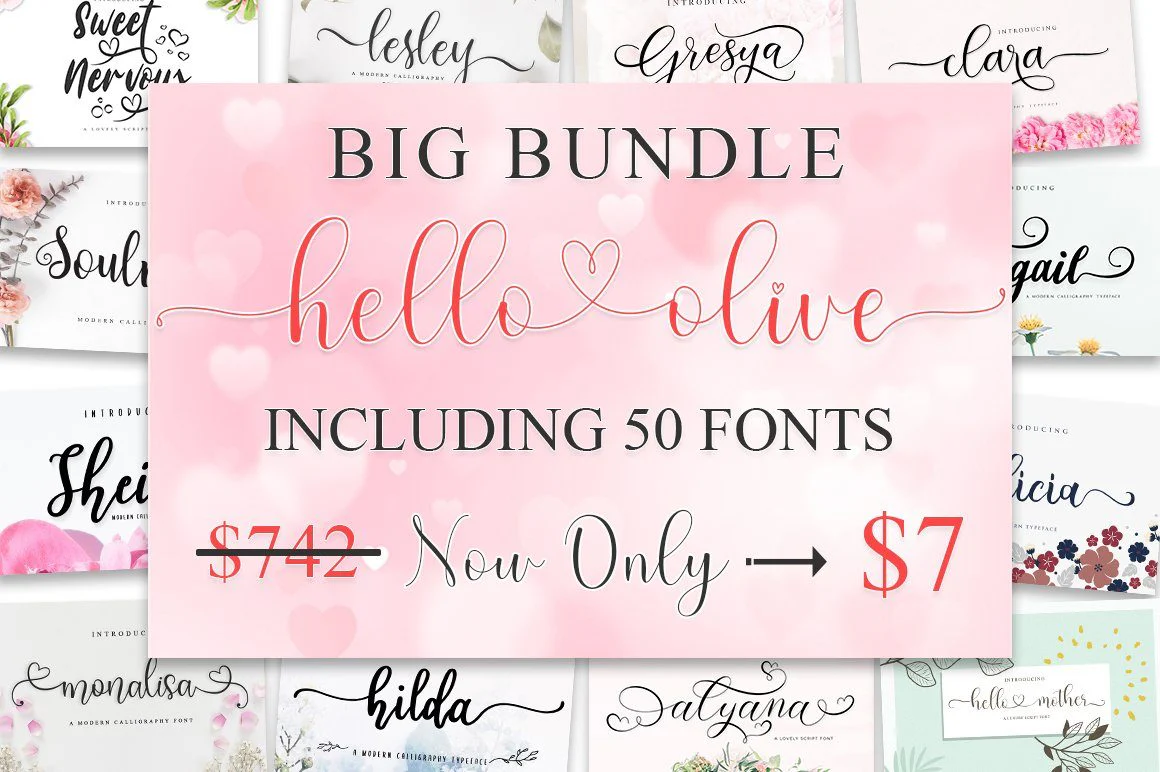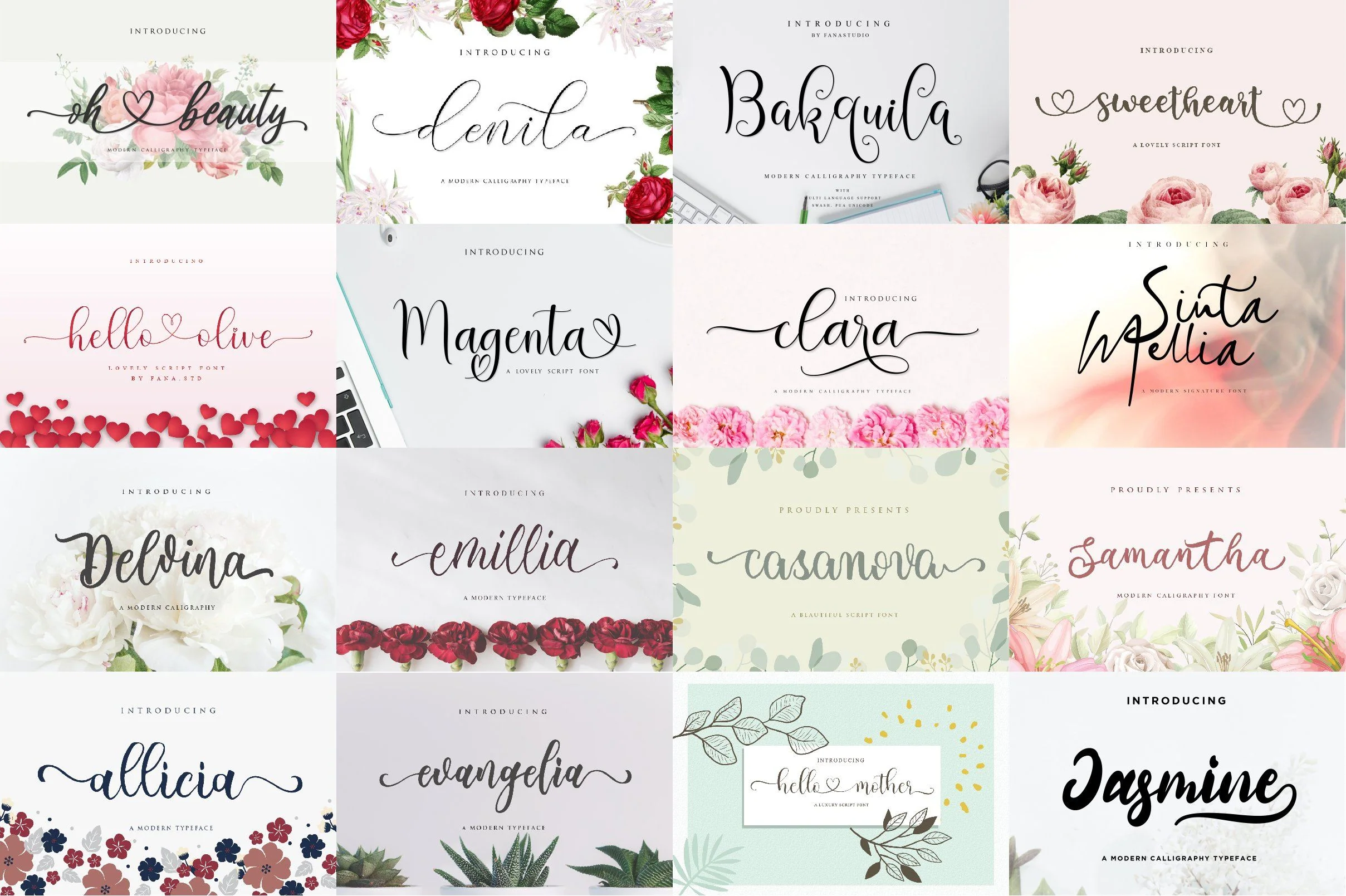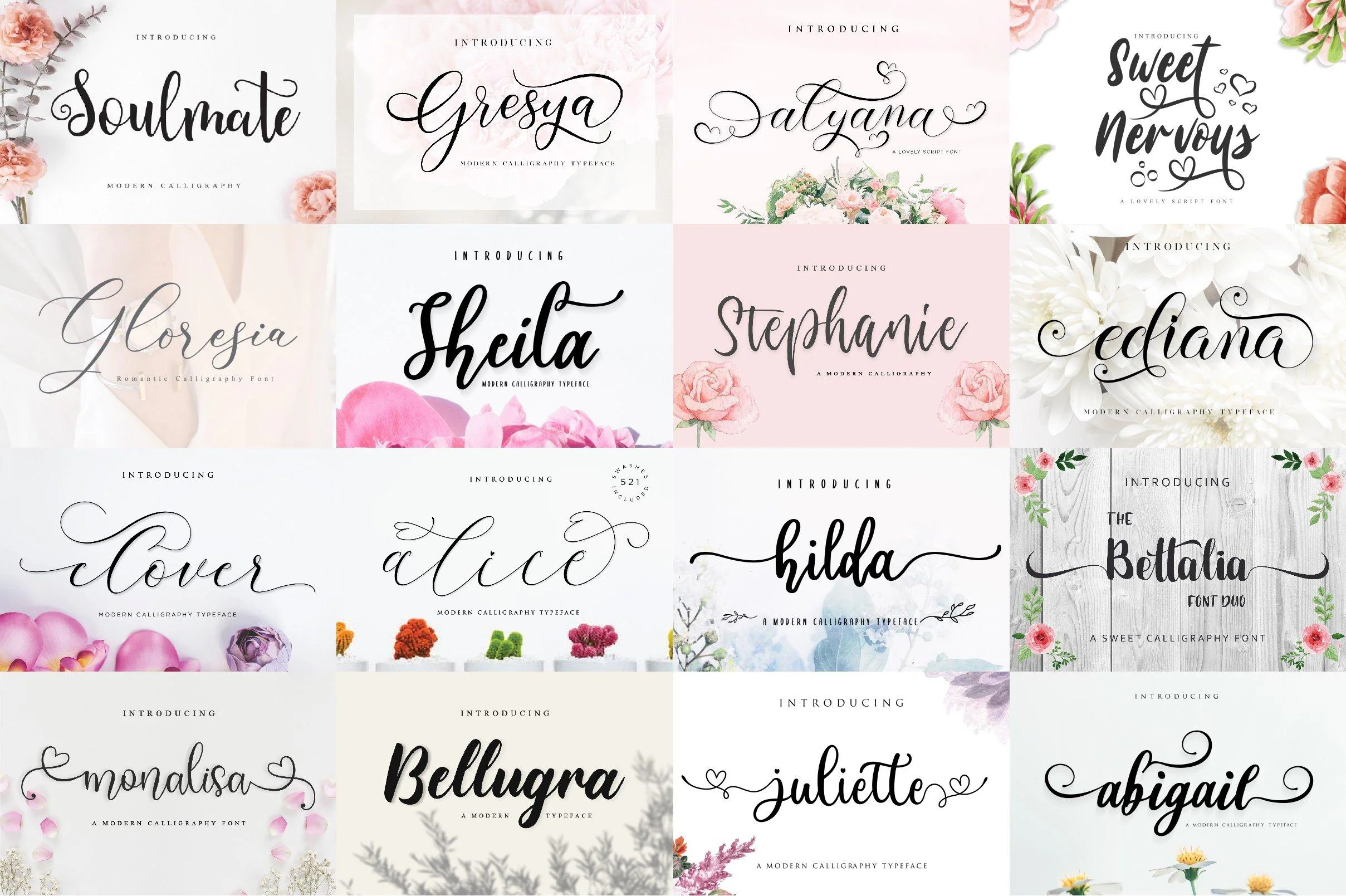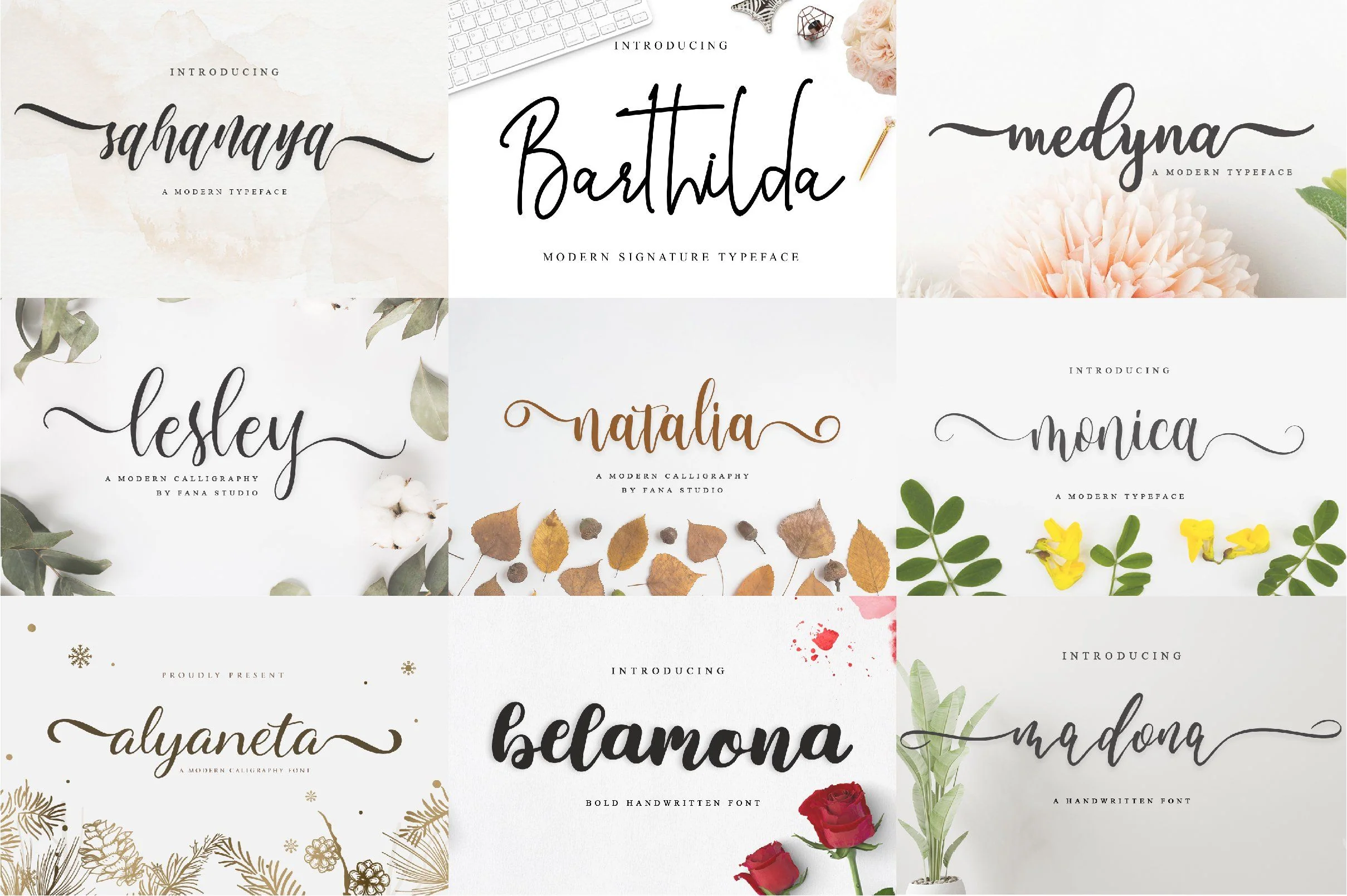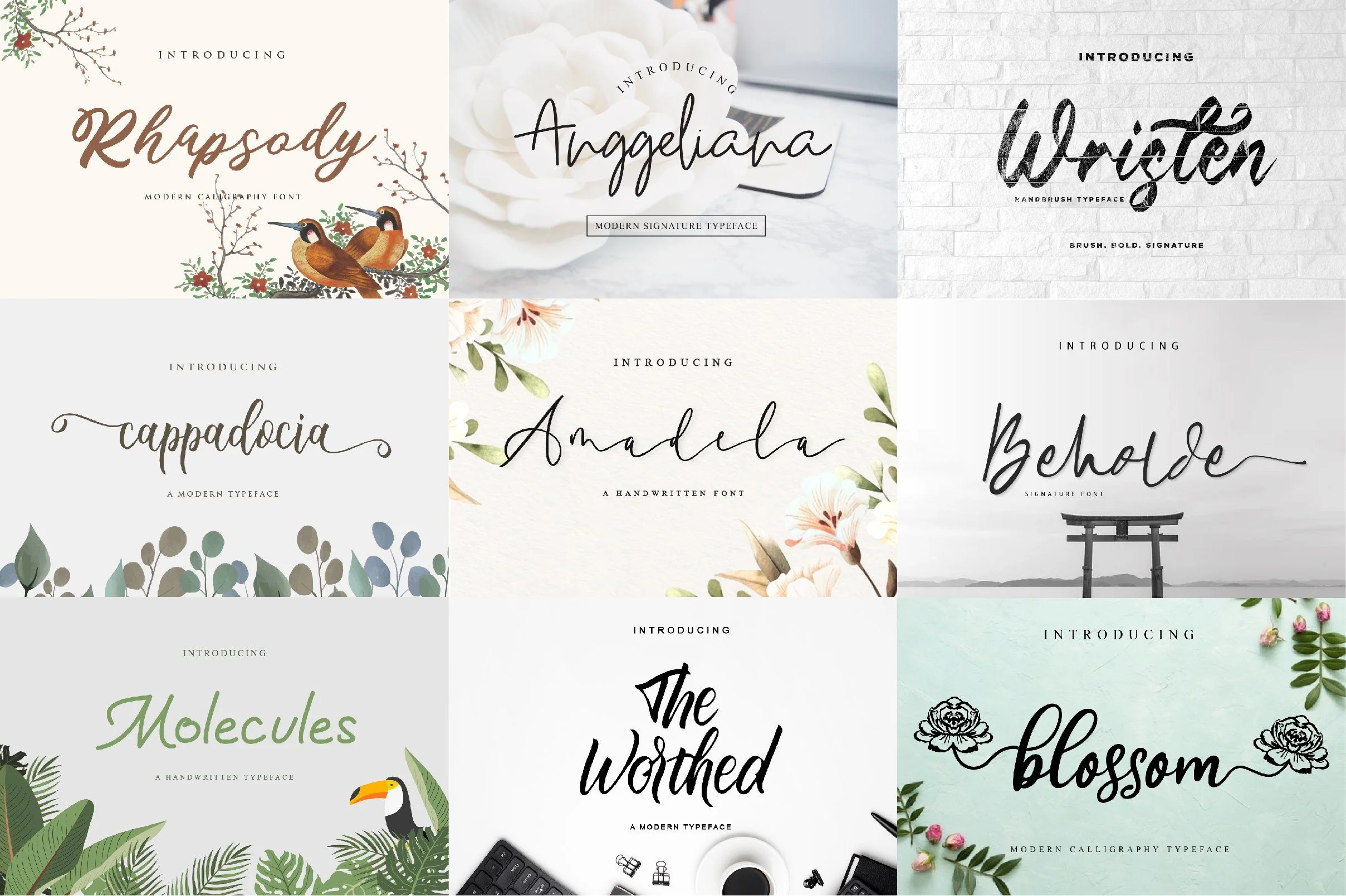
Big Bundle - Lovely Font
Give your designs a playful and romantic feel with this font bundle, which is perfect for invitations, signatures, stationery, logos, typographic quotes, magazines, or book covers.
Each font has: – Modern Calligraphy Fonts – Handwritten Display Font – Beautiful Swash (Tail Ends) – Beautiful Titling (Early Tail) – Special Ligatures – Multilingual Support – PUA encoded = Accessible in Adobe Illustrator, Adobe Photoshop, Adobe InDesign, even works in Microsoft Word dan lain-lain. PUA Coded Characters – Fully accessible without additional design software.